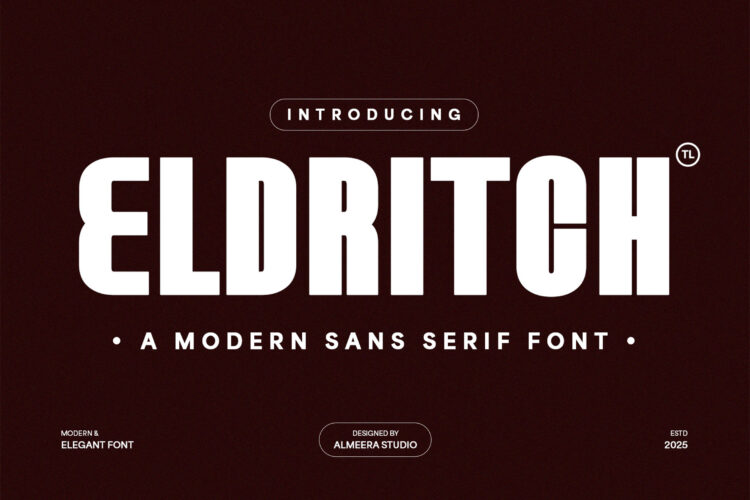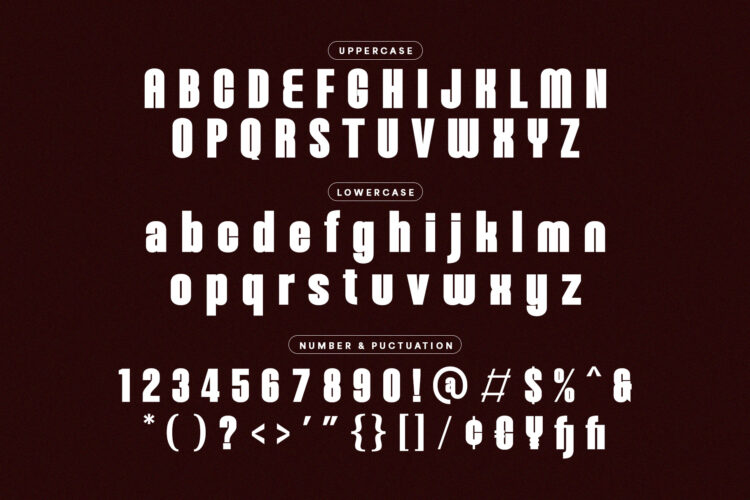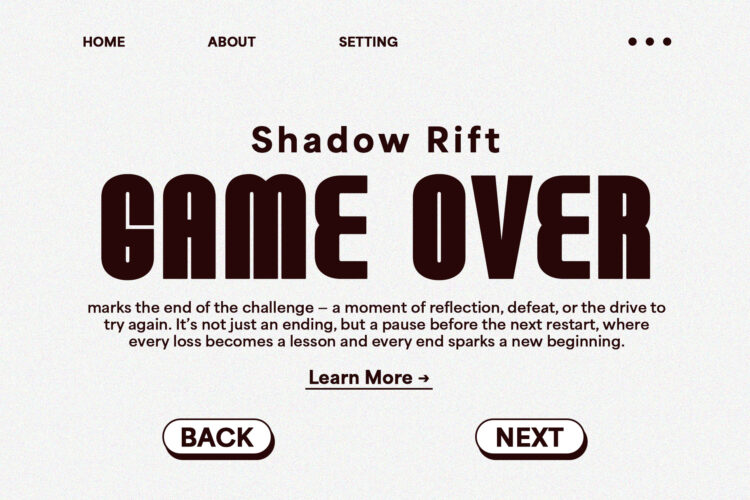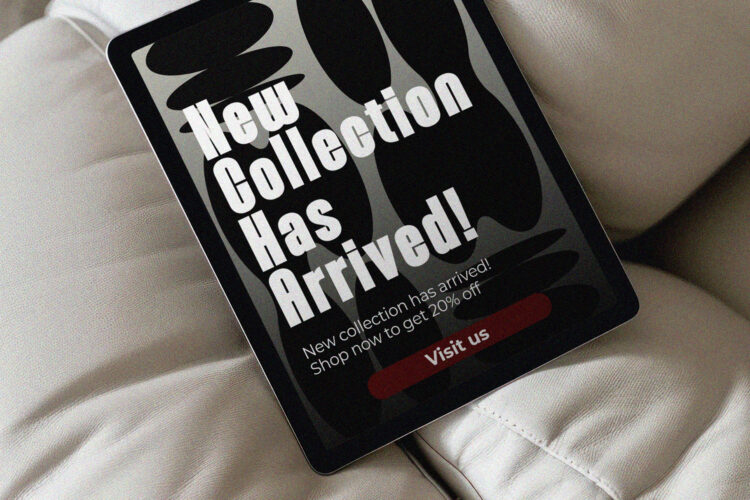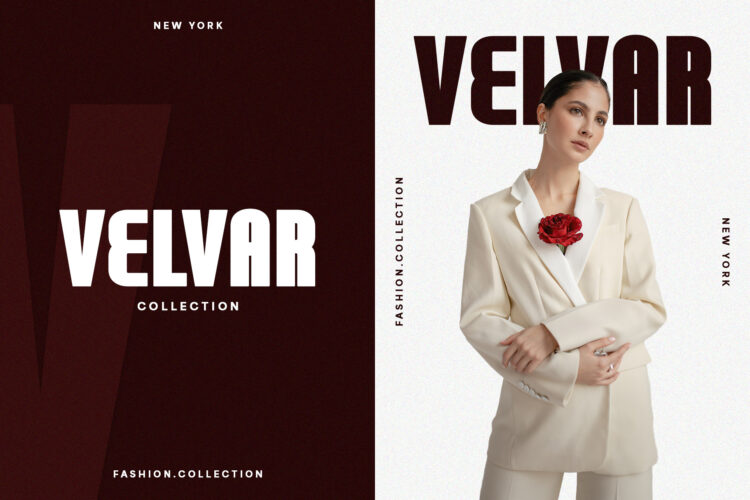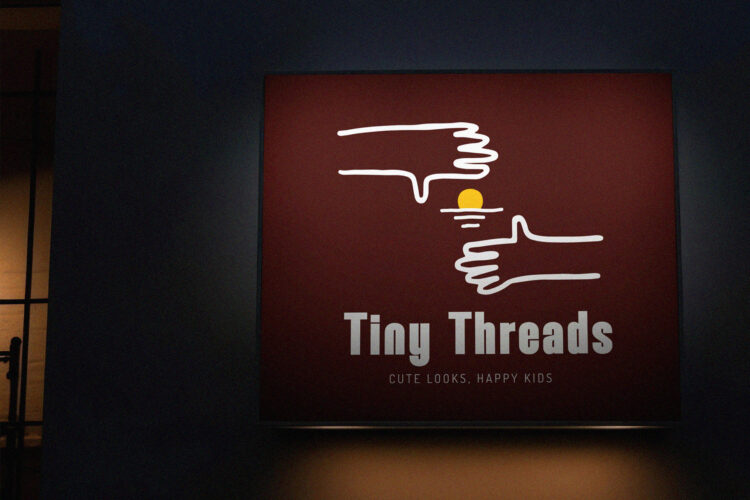
Discover Eldritch, a captivating modern sans serif font that combines robust strength with an elegant touch. This unique typeface is perfect for bold branding, expressive headlines, product packaging, and creative editorial designs. Eldritch stands out with its distinctive character and confident presence, ensuring your message is delivered with impact and style. Its blend of modern aesthetics and clear readability makes it incredibly versatile for both digital and print applications. Elevate your typography with Eldritch, the ideal font for designers who seek to infuse their projects with a fresh, contemporary feel that is both powerful and elegantly unique.